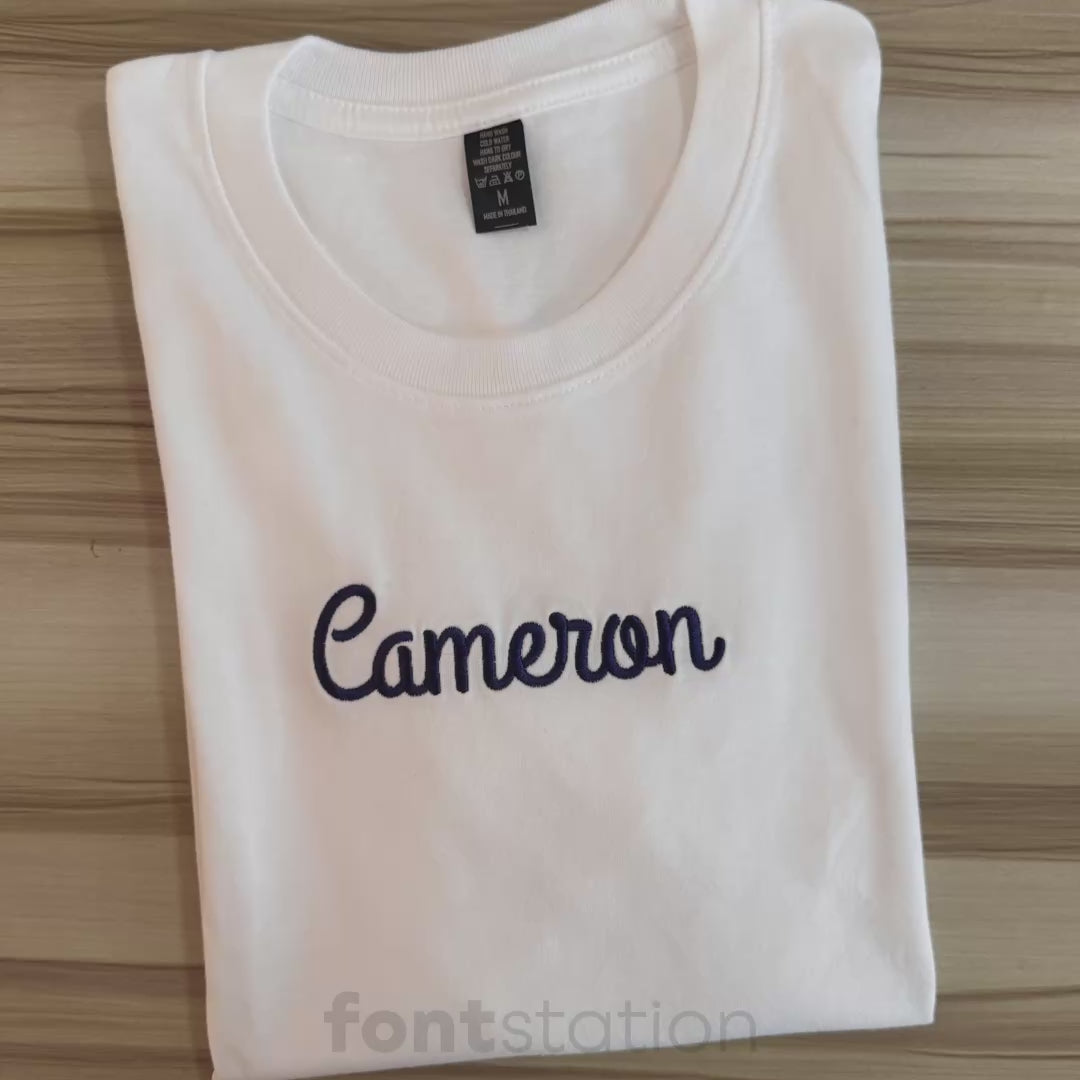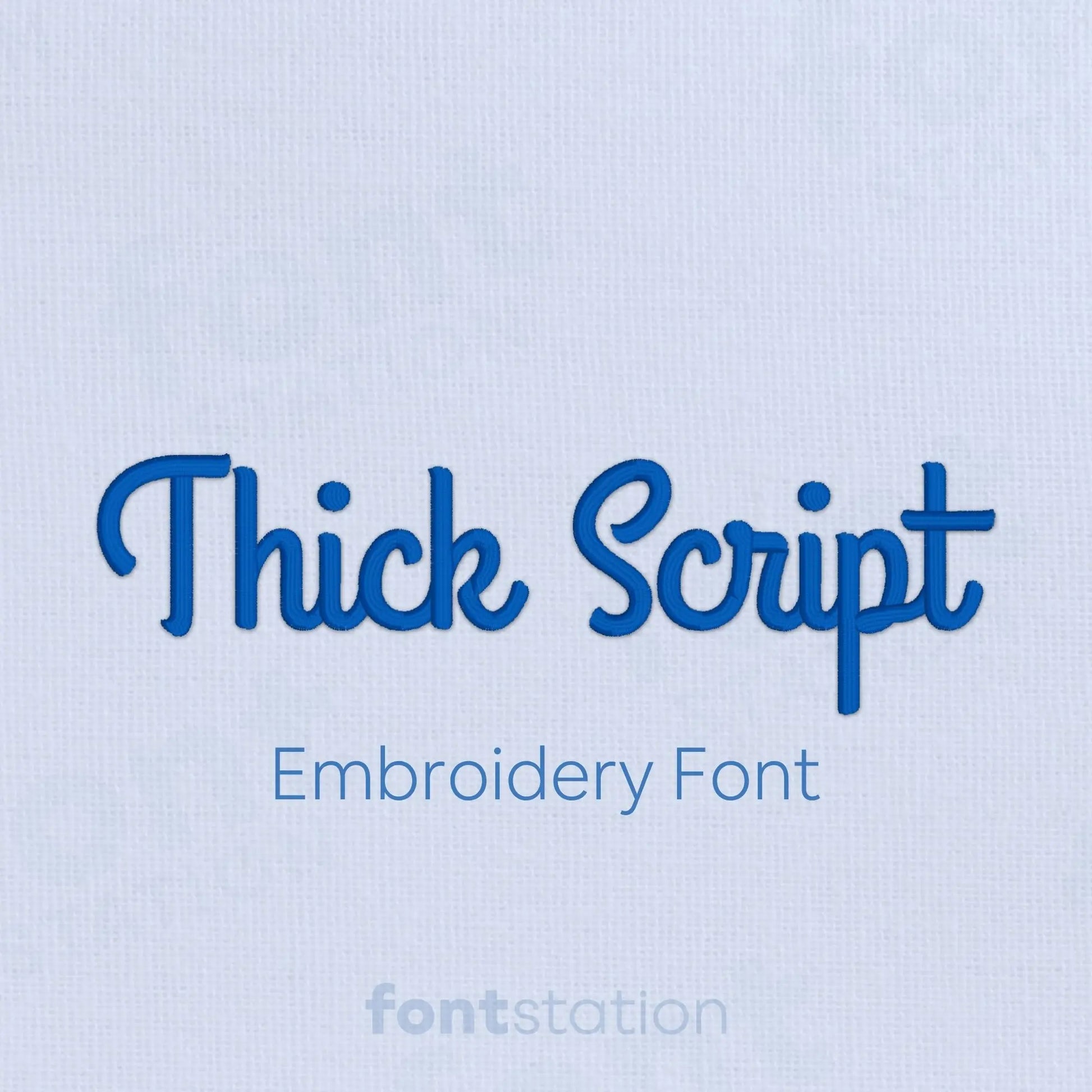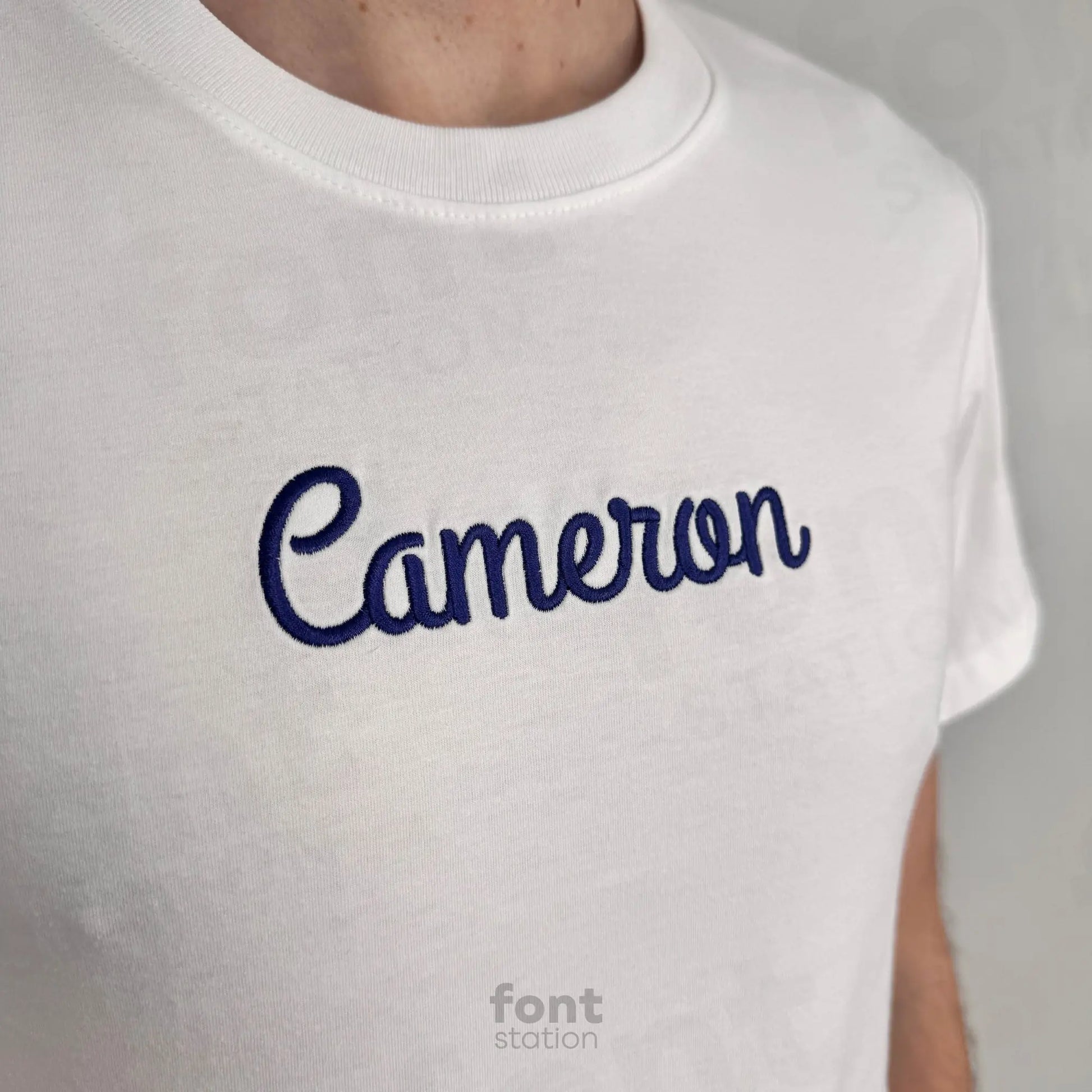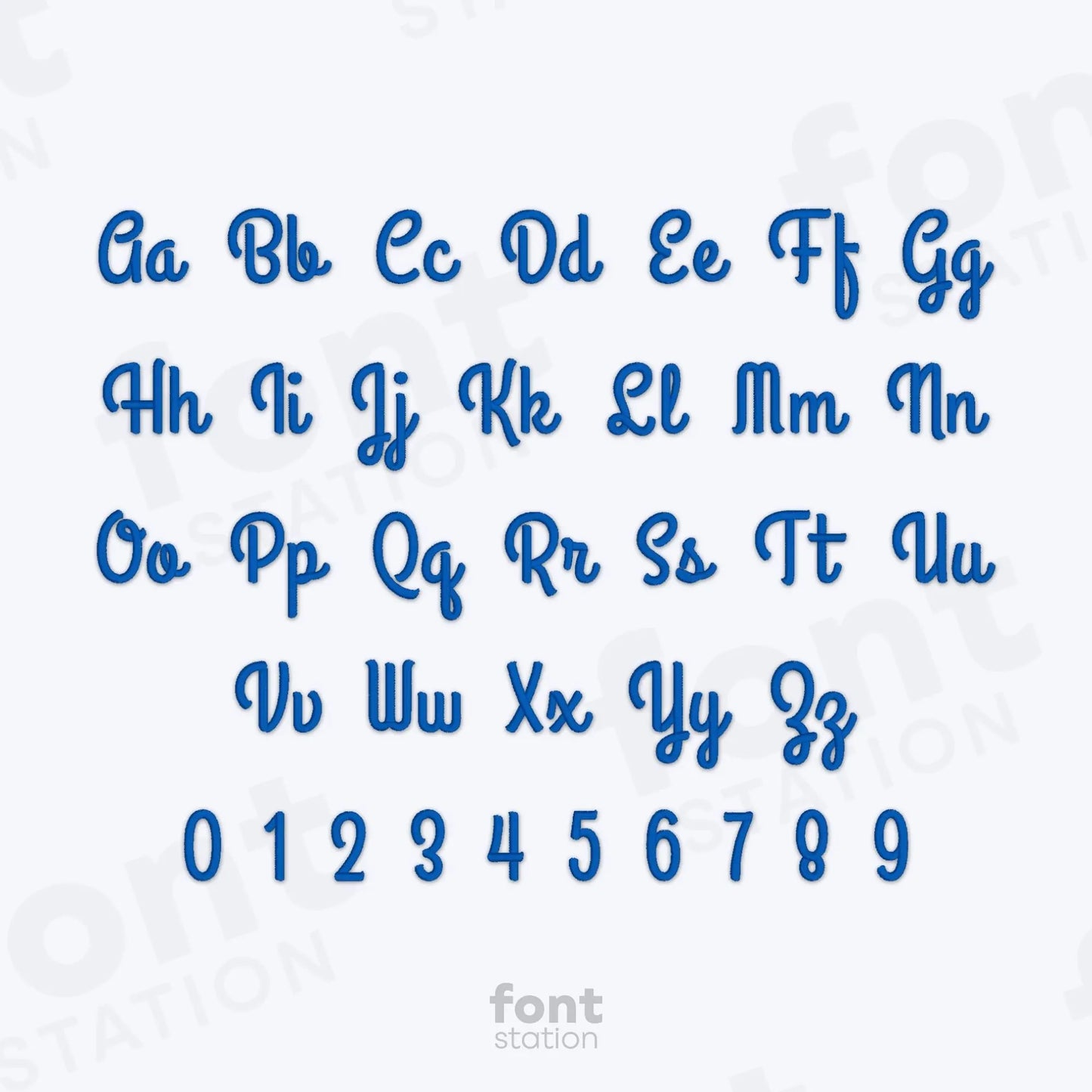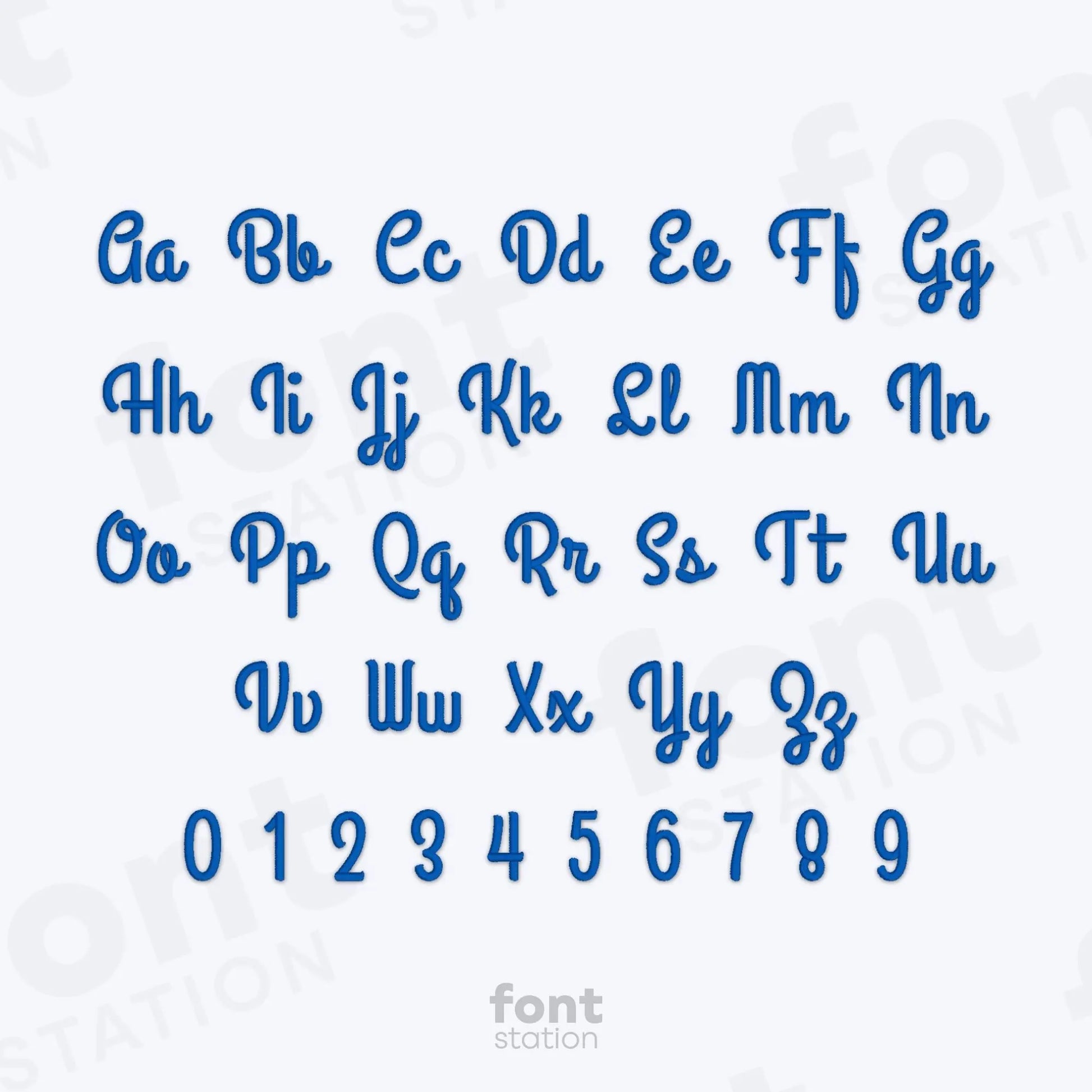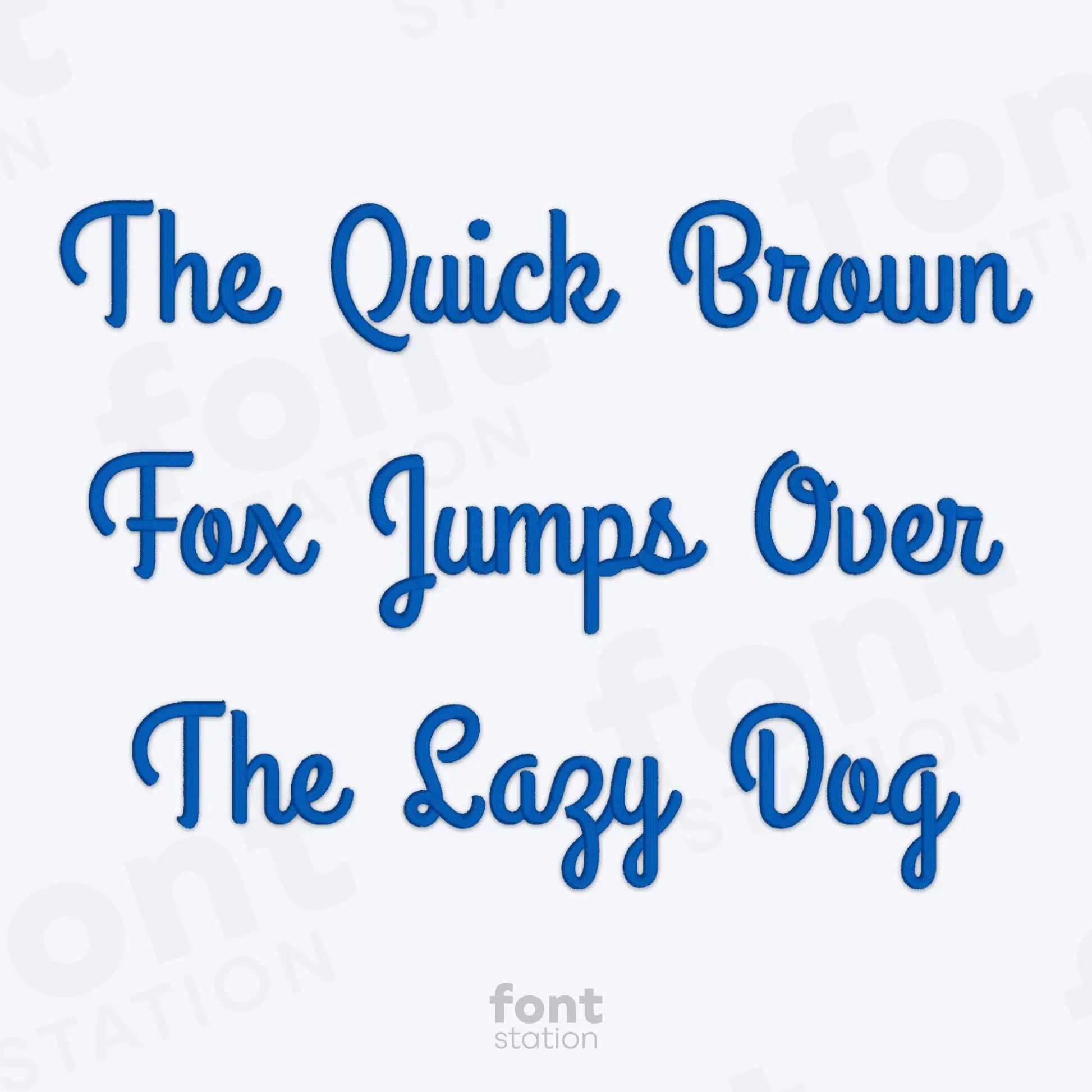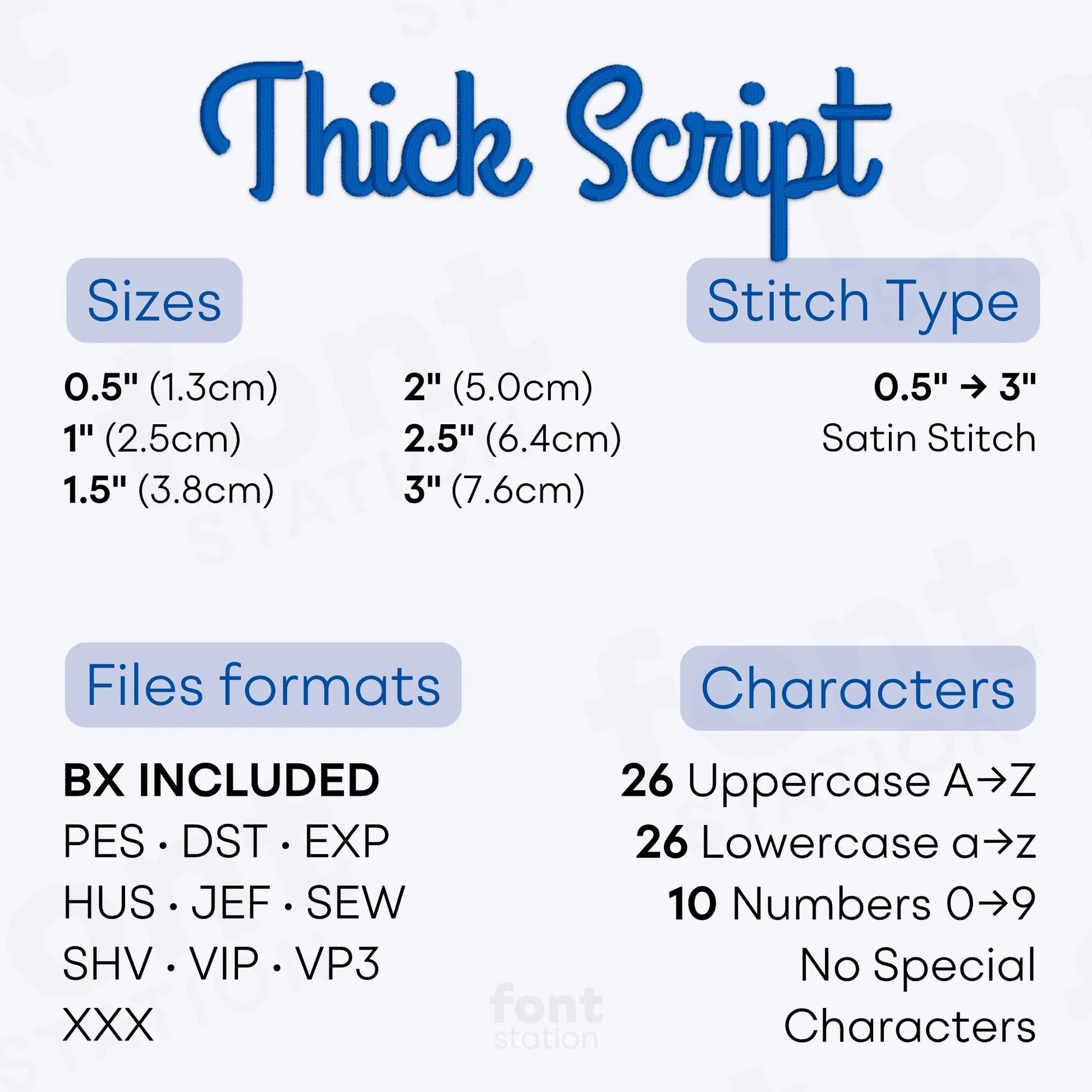
Thick Script Embroidery Font
Introducing our Thick Script embroidery font, a bold cursive handwritten alphabet perfect for eye catching letters on any project. Ready to stitch with your embroidery machine, it helps you create beautiful personalized designs with smooth, elegant results.
About the Thick Script Embroidery Font
Satin Stitch: 0.5", 1", 1.5", 2", 2.5" et 3"
Characters: 26 uppercase, 26 lowercase et 10 numbers
Our Thick Script embroidery font brings a bold cursive handwritten style to your embroidery projects.
This expressive machine embroidery font features a thick cursive alphabet with smooth, flowing letters designed for strong visibility and a handcrafted look. Perfect for names, monograms, apparel, bags, gifts, nursery items, and personalized embroidery designs, it adds warmth and personality to every project.